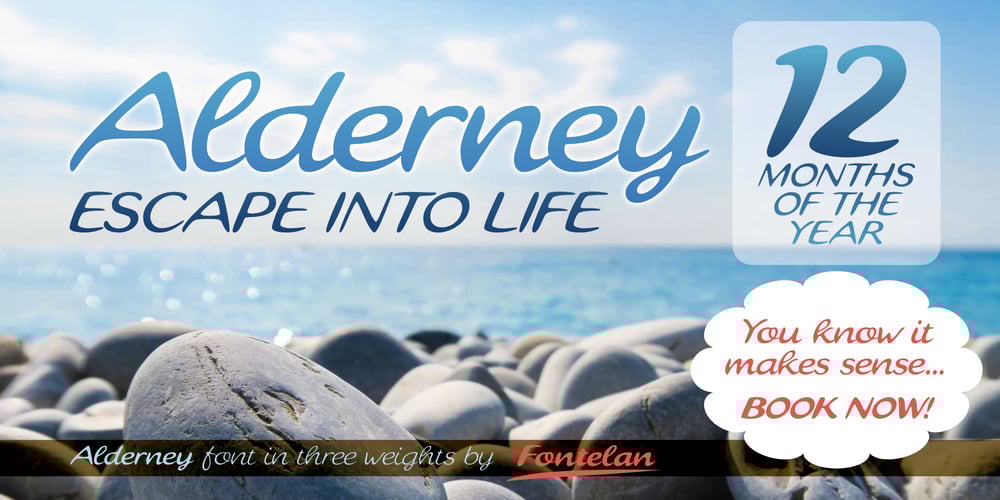
Alderney
Alderney font
Alderney Font Family was designed by Stephen E Rowe and published by Fontelan. Alderney contains 3 styles and family package options. Alderney is a friendly font family in three weights, Light, Regular and Bold, designed by Stephen E Rowe for the foundry Fontelan. It is a gentle script crafted for more relaxed display needs, but, being oblique in character, it gives an air of excitement to many projects, especially in all caps situations. Unlike many scripts, the capitals can be successfully used as a great display option.All glyphs have a smooth curve and a broad, flowing, low aspect. The light version lends itself to airy design possibilities, again, especially when the caps are used for display purposes. The regular version is a well balanced script that remains spacey and elegant, and the bold version is excellent for a display that suggests excitement.